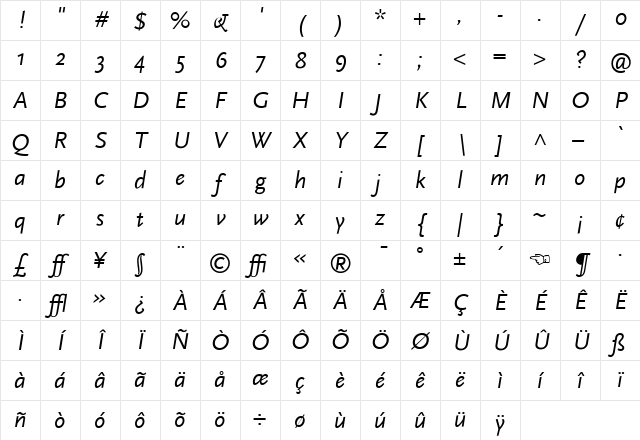
ScalaSans Italic
Design Context for ScalaSans
ScalaSans is a composed and adaptable typeface that performs quietly and consistently across a wide range of design contexts. The slanted form adds forward momentum and visual energy.
Pro Tip: Use ScalaSans for emphasis, pull quotes, and subheadings where its slanted energy can add rhythm to the layout.
Who designed the ScalaSans Italic font?